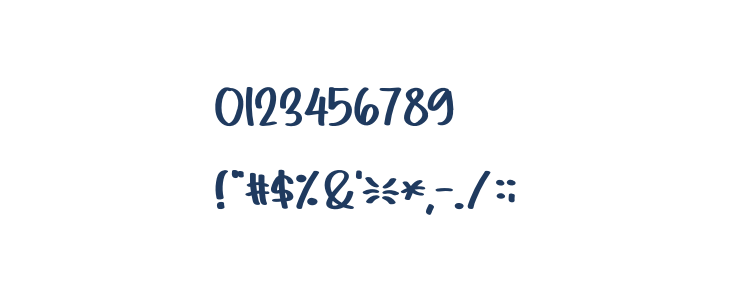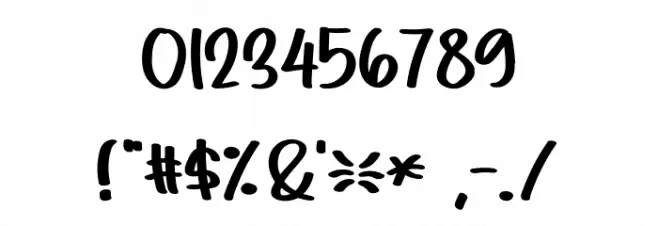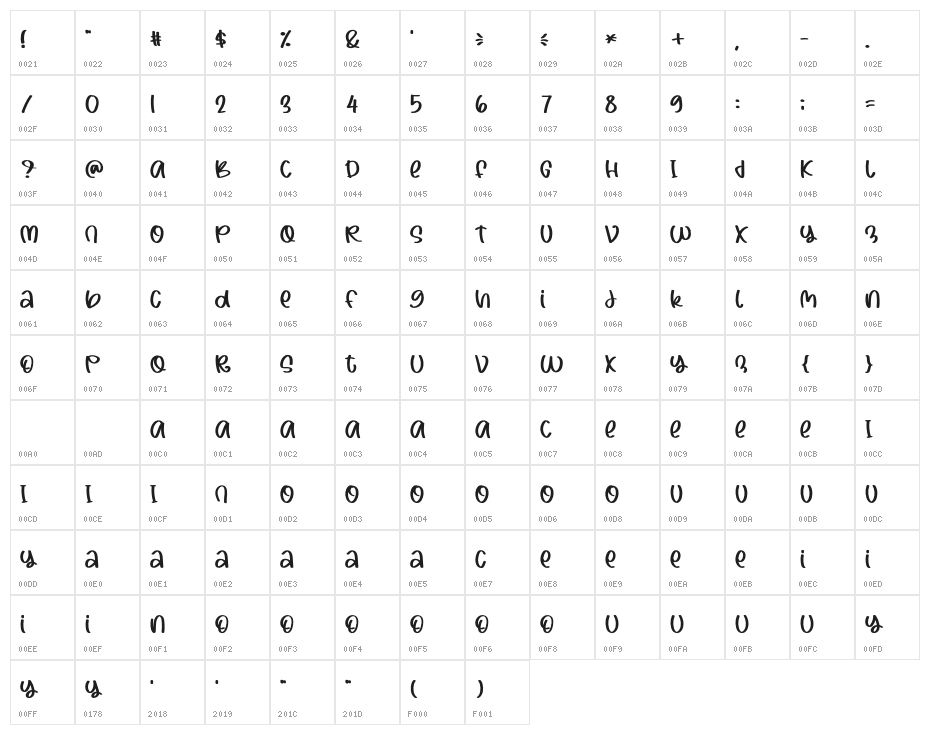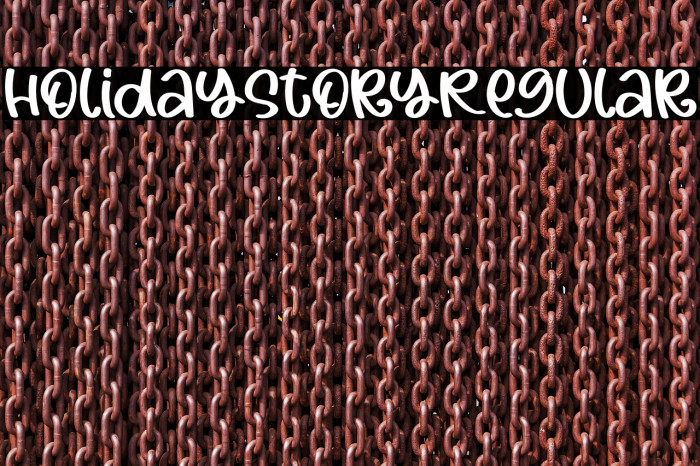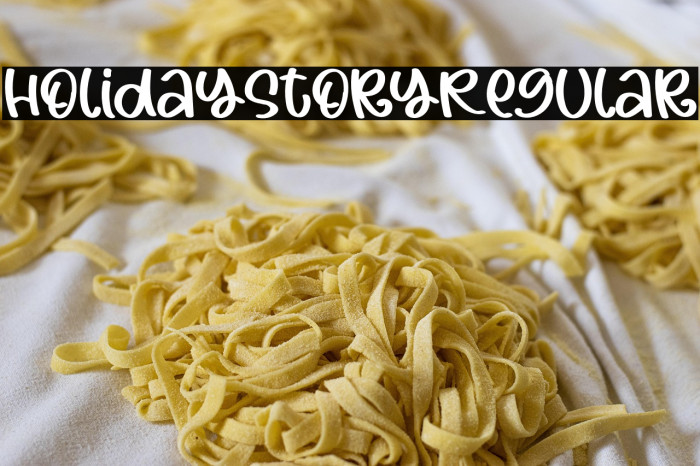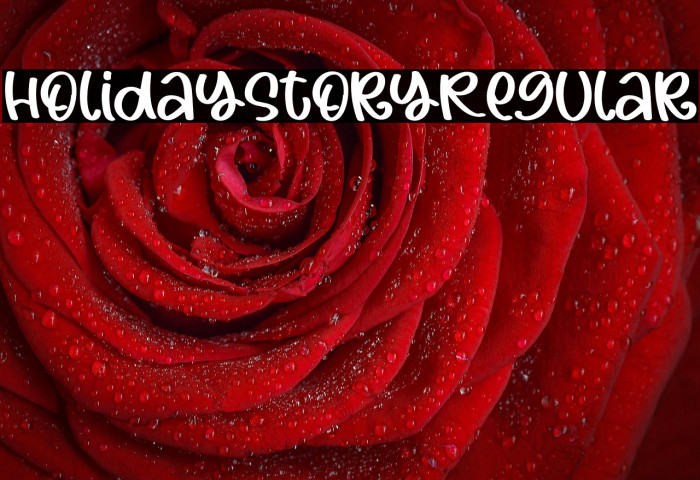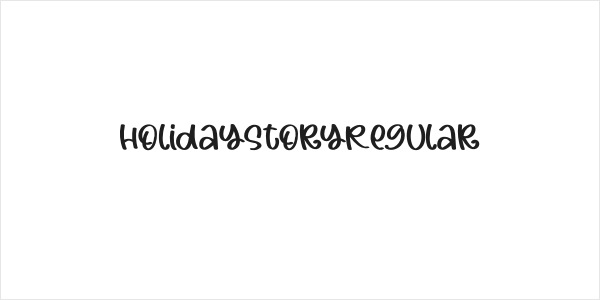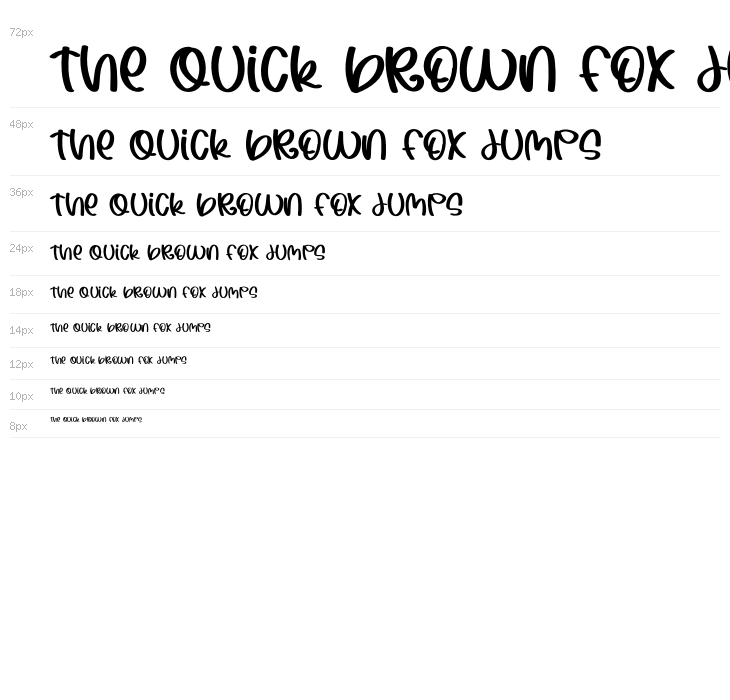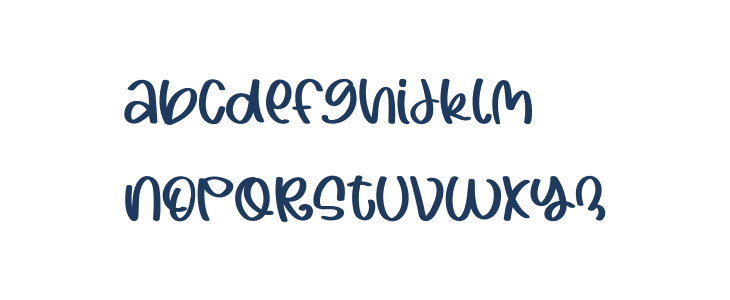
HolidayStoryRegular Font
HolidayStoryRegular Description
This playful and whimsical font features a handwritten style with a casual and friendly appearance. The letters are rounded and slightly slanted, giving them a dynamic and lively feel. The strokes are consistent in thickness, providing a uniform look across all characters. The font includes both uppercase and lowercase letters, numbers, and a variety of special characters. Its informal style makes it suitable for creative and fun projects, adding a personal touch to any design.
| Use Case | Headlines, Logos, Casual text |
| Proposed Projects | Ideal for greeting cards, children's books, playful branding, and casual invitations. |